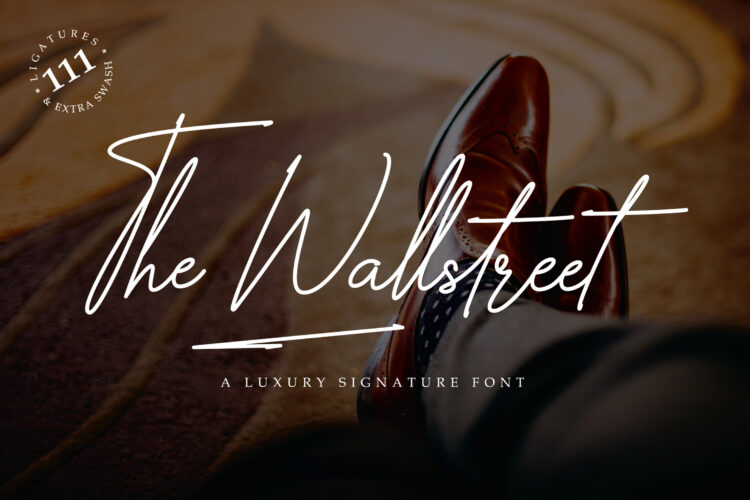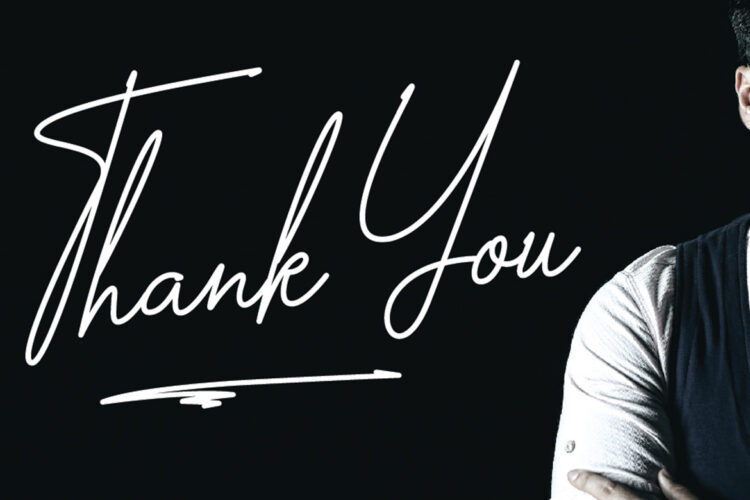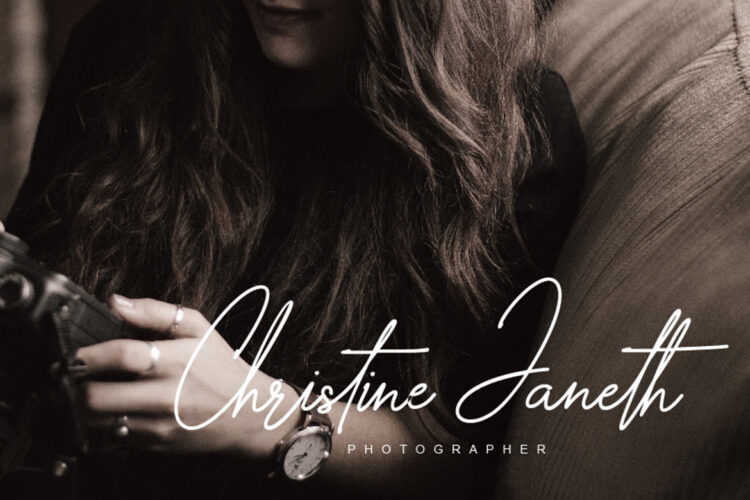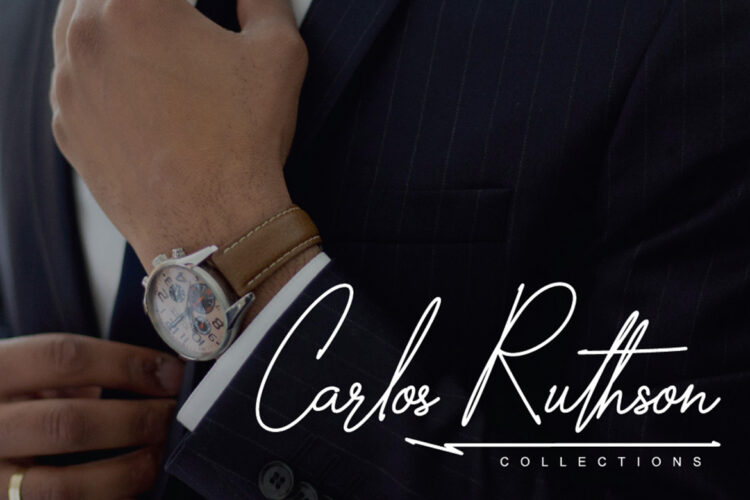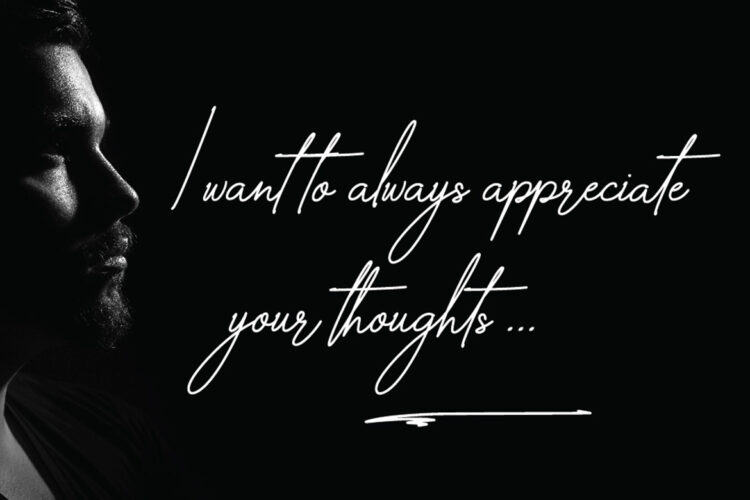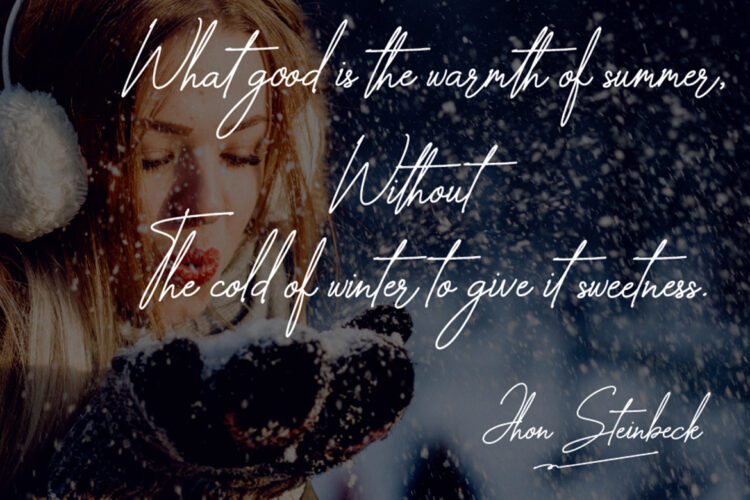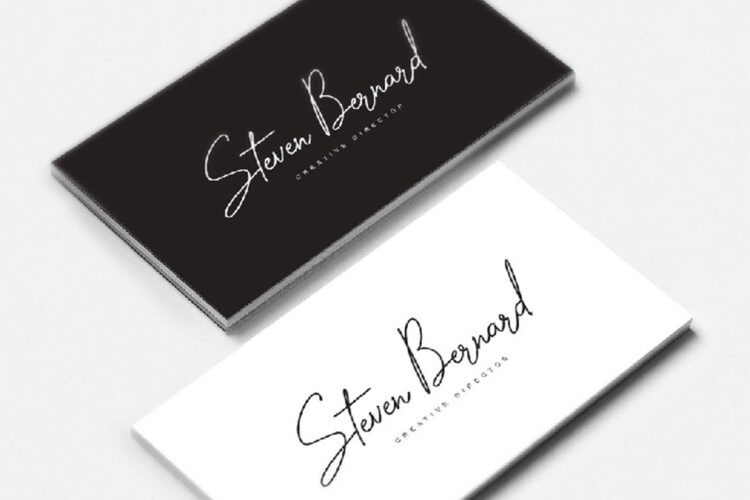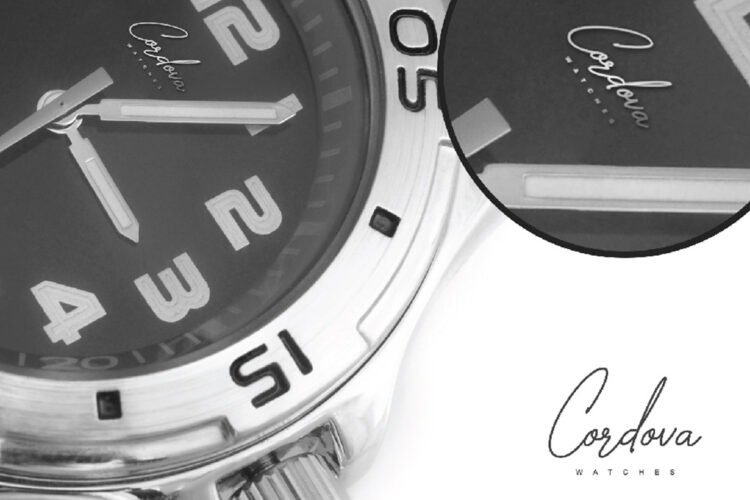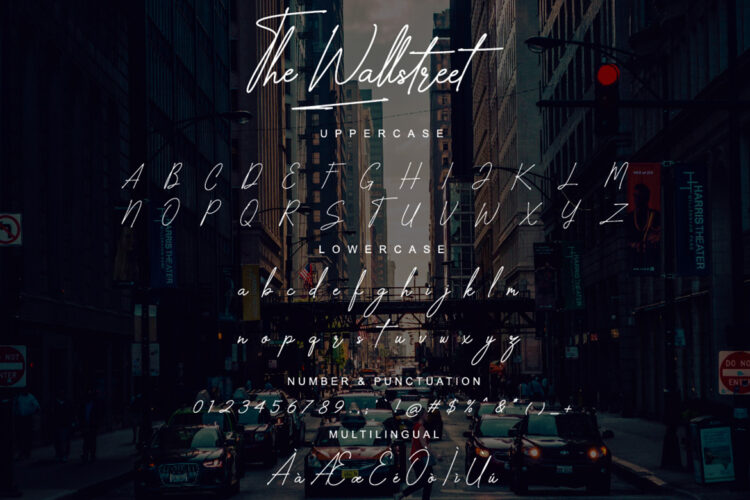
The Wallstreet is a luxurious signature font. There are lots of ligatures and swashes included to add some elegance to your designs.
The Wallstreet – Signature Font